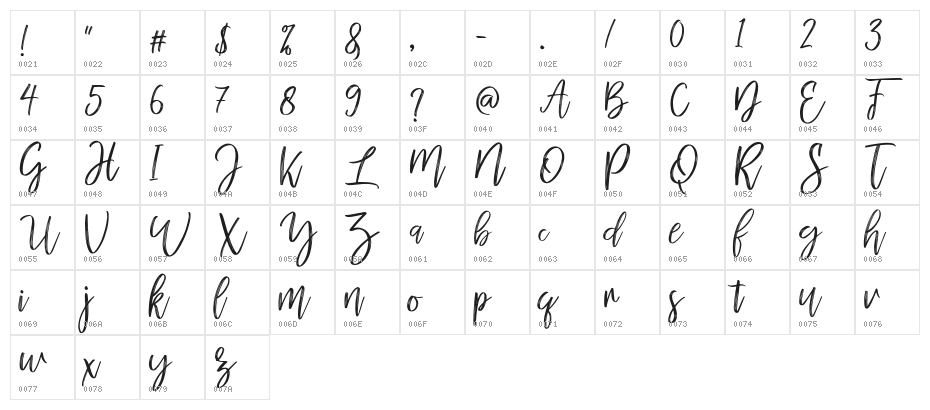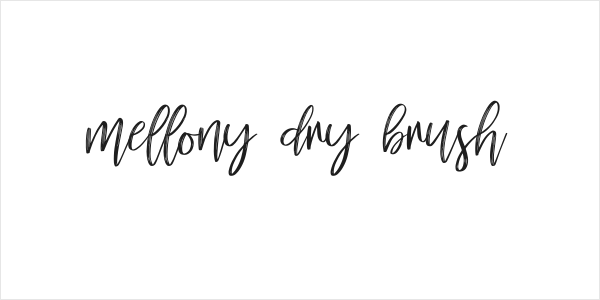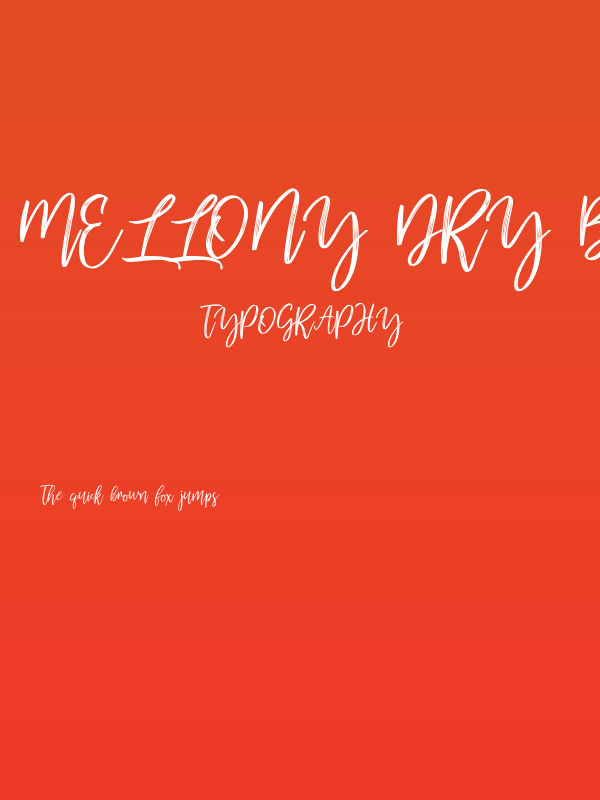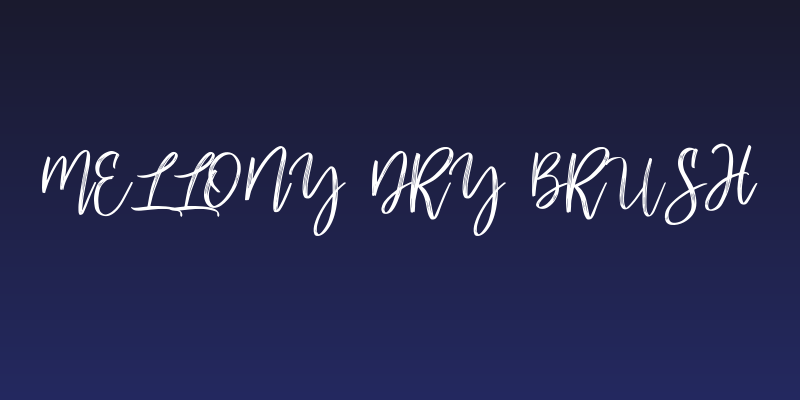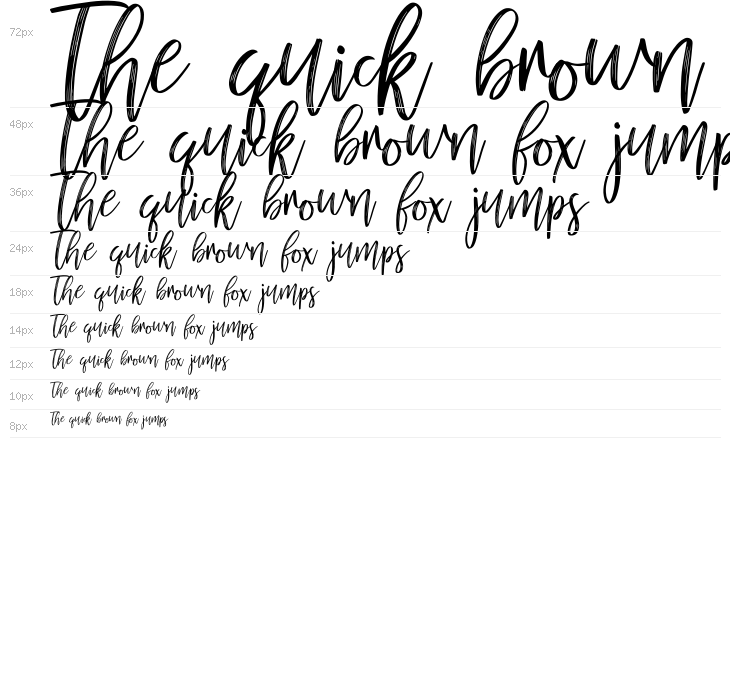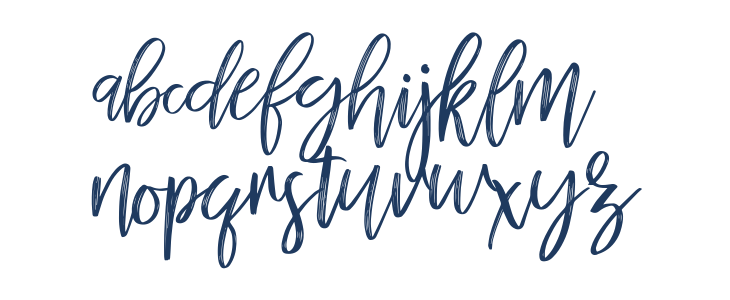
mellony dry brush Font
mellony dry brush Description
This font features a dynamic and expressive dry brush style, characterized by its fluid and energetic strokes. The letters have a natural, hand-painted appearance with varying thickness, giving it a lively and artistic feel. The uppercase and lowercase letters are designed with a sense of movement and spontaneity, while the numbers and special characters maintain the same energetic style. The brush strokes are bold and confident, creating a strong visual impact. This font is perfect for projects that require a personal and creative touch, such as invitations, posters, and branding materials.
| Use Case | Logos, Headlines, Artistic designs |
| Proposed Projects | Ideal for creative projects like invitations, posters, branding, and artistic designs. |